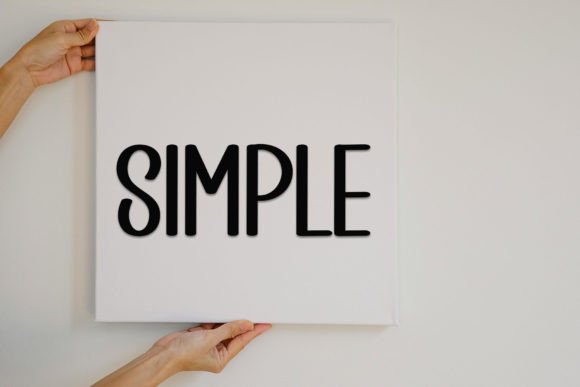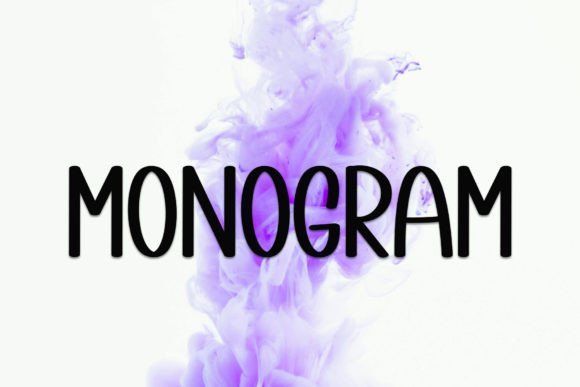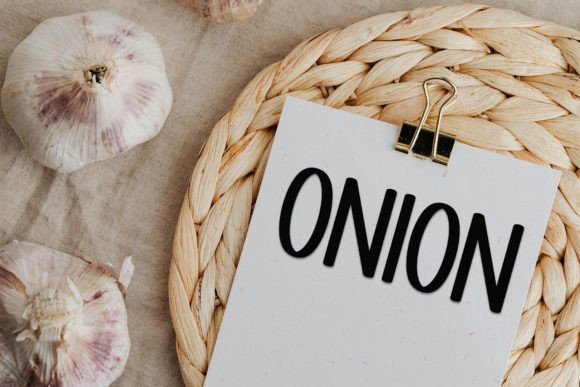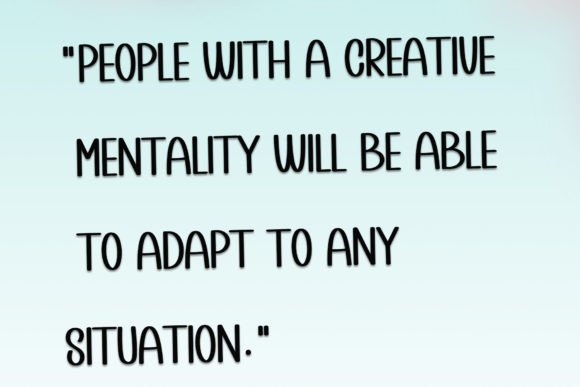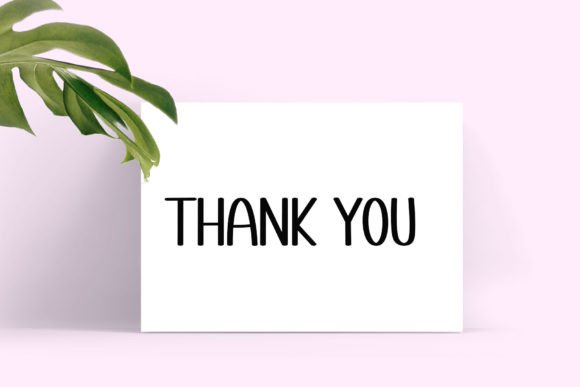
Step into the Wilderness of Creativity
There’s something magical about capturing the perfect moment – the golden hour, the misty dawn, or the starry night sky. As creatives, we’re always on the lookout for that special something to elevate our designs and make them truly unforgettable. And, for me, that something is the Hiking Font – a beautiful, handwritten font that adds an elegant touch to any project.
This lovely font is perfect for designers who want to add a personal and timeless touch to their work. Its distinct style is sure to captivate and inspire, making it a valuable addition to any design arsenal. Whether you’re working on a brochure, a logo, or a social media post, the Hiking Font is sure to bring your design to life.
Hiking Font Key Features
- Unique Characteristics: Hiking Font is a sans-serif typeface designed specifically for outdoor and nature-related applications, featuring a clean and modern aesthetic with a rugged feel.
Hiking Font Review
Hiking Font is an interesting choice for designers who want to add a touch of adventure to their projects. Here are some pros and cons of using this font.
- Casual and friendly feel, perfect for outdoor-themed projects
- Lots of variation in letterforms, adding character to text
- Good legibility, even at smaller font sizes
- May not be suitable for formal or professional projects
- Limited support for non-Latin scripts
- Some letters may not be as clear or readable at very small sizes
Overall, Hiking Font is a fun and quirky choice for designers who want to add some personality to their work. While it may not be the best choice for every project, it’s a great option for outdoor-themed projects or designs that need a casual touch.
Alternatives to Hiking Font for Designers
Rockwell is a slab serif font that offers a sturdy and dependable look, often used for body text and signage. It is a great alternative to Hiking Font for designers who want a similar rugged feel without the rough edges. Rockwell is a good choice when you need a font that conveys stability and reliability.
Comparison to Hiking Font: Rockwell has a more refined and polished look compared to Hiking Font, which can appear more rough and casual. Rockwell is also more versatile and can be used in a wider range of applications.
Truckers
Truckers is a sans-serif font designed to mimic the look of handwritten text, often used for informal and playful designs. It is a great alternative to Hiking Font for designers who want a similar casual feel without the outdoor theme. Truckers is a good choice when you need a font that conveys friendliness and approachability.